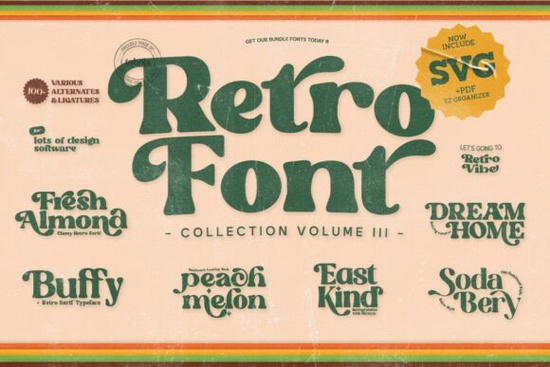
If you’ve been searching for fonts that bring back the fun, colorful energy of the 60s and 70s without looking dated, the Retro Groovy Bundle Font might be exactly what your next project needs. Whether you’re designing merch, branding a small business, or just playing around with personal art, this bundle gives you seven distinct display fonts each with its own rhythm and personality. No two fonts feel the same, which means you can mix and match depending on the vibe you’re going for.
Fonts like Fresh Almond lean into soft curves and friendly letterforms, while something like Sodabery feels more playful, almost like it belongs on a soda shop sign from 1972. If you’ve ever browsed our retro groovy collection, you’ll notice how these fonts stand out they’re not just themed, they’re thoughtfully built for real-world use.
What kinds of projects work best with these fonts?
These aren’t your standard body text fonts they’re display fonts, meant to grab attention and set a mood. You’ll get the most out of them when used for:
- T-shirt designs and tote bags (especially for music festivals or vintage shops)
- Event posters, flyers, or social media graphics for themed parties
- Product packaging for handmade goods, candles, or snacks with a retro twist
- Album covers or playlist art if you’re curating a nostalgic sound
- Branding elements like logos or signage for cafes, boutiques, or creative studios
One thing users often appreciate is how well fonts like these pair with photos or textures. The bundle includes bonus illustrations and retro-style textures (if available), so you don’t have to hunt down extra assets to complete your design. That’s especially helpful if you’re working in Canva or Affinity and want everything to feel cohesive without switching tools.
Are these fonts easy to customize?
Yes and that’s one of the quiet strengths here. All seven fonts are PUA encoded. That means you can access stylistic alternates, ligatures, and special characters directly from your font menu in programs like Illustrator or Photoshop. No need to dig through glyph panels or install separate files. For example, Peach Melon includes swashes and rounded terminals that you can toggle on or off depending on how bold you want the look to feel.
If you’ve ever struggled with fonts that look great in previews but fall flat in your own layouts, these were designed with flexibility in mind. Try pairing Dream Home with a clean sans-serif for contrast, or let Buffy stand alone as a headline its thick strokes hold up even at small sizes.
How do these compare to other retro fonts on Creative Fabrica?
There’s no shortage of retro-inspired typefaces out there, but what sets this bundle apart is consistency in quality and variety in tone. Some fonts lean funky (East Kind), others feel homey or hand-drawn. Compare that to something like Departure Board, which leans more mid-century modern, or Graffiti City, which brings street art energy this bundle fills a specific niche: warm, inviting, and unapologetically groovy.
Even Brick Edgie, which has an urban edge, doesn’t quite capture the same laid-back, sun-drenched feeling you get from fonts like Sodabery or Fresh Almond. That’s why bundling them makes sense you’re not locked into one aesthetic. Switch between moods without losing visual harmony.
Also worth noting: while the fonts themselves are licensed for commercial use, always double-check the license terms for any bundled textures or illustrations if you plan to resell products. Most users find the licensing generous, especially for print-on-demand sellers or Etsy shop owners.
Quick tip: If you’re unsure which font to start with, open all seven in your font manager and type the same word in each. See which one “feels” right for your brand or message. Sometimes the best choice isn’t the boldest it’s the one that matches the emotion you’re trying to convey.
Before you start designing, here’s a simple checklist:
- Install all seven fonts so you can preview them side by side.
- Test readability at the size you plan to use especially for apparel or packaging.
- Pair with a neutral font for body text to keep your design balanced.
- Use the bonus textures as backgrounds or overlays to add depth without clutter.
Start small maybe a sticker design or Instagram story template and see how the fonts behave in your workflow. Once you get comfortable, you’ll likely find yourself reaching for them again and again. There’s something timeless about good retro design, and this bundle makes it easy to tap into that without overthinking it.